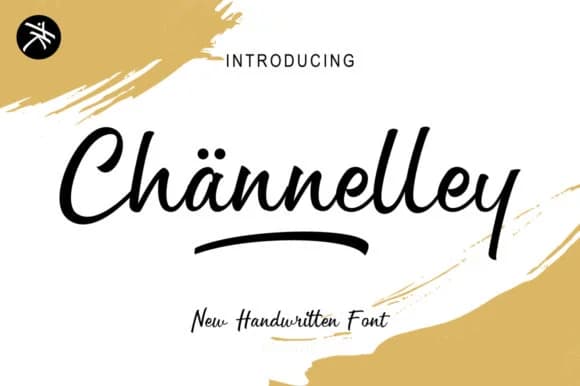
Channelley by Arief.hk is a flowing script typeface that strikes a genuine balance between polish and personality. The letterforms carry natural rhythm and contemporary movement, creating something that feels both refined and warmly human. It's the kind of font that works equally well on a wedding invitation suite or a hand-lettered greeting card, whether you're designing boutique packaging labels or custom event signage. There's an authenticity to each stroke that doesn't require extra effects or digital manipulation to feel genuine.
What makes Channelley special is how it performs across wildly different scales and contexts. Lettering for social media graphics feels just as natural as printing personalized stationery or crafting calligraphy-inspired branding elements for a boutique. The slight variations in weight and flow across the characters keep the typeface feeling handmade rather than mechanical, which matters when your goal is meaningful connection with your audience. You get that effortless-looking elegance without any of the actual labor you'd spend perfecting true calligraphy by hand. It's sophisticated enough for premium brands and special occasions yet approachable enough for personal creative projects and DIY crafting. Consider it for custom labels, hand-lettered signage, personalized gifts, and any project where handwritten warmth makes the real difference.
Channelley Font is a script font that shines as a display or heading face. Pair it with a clean sans-serif or serif font for body text β the contrast creates a clear hierarchy while the two styles stay balanced and easy to read.